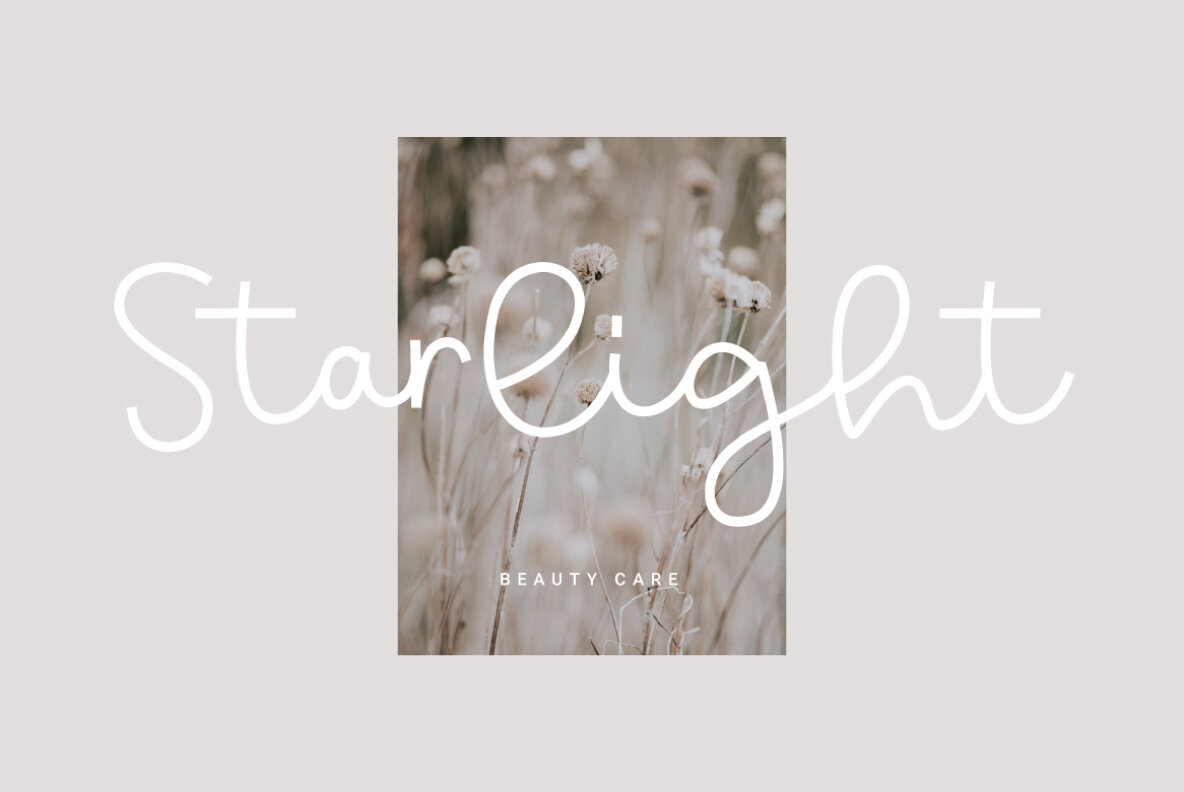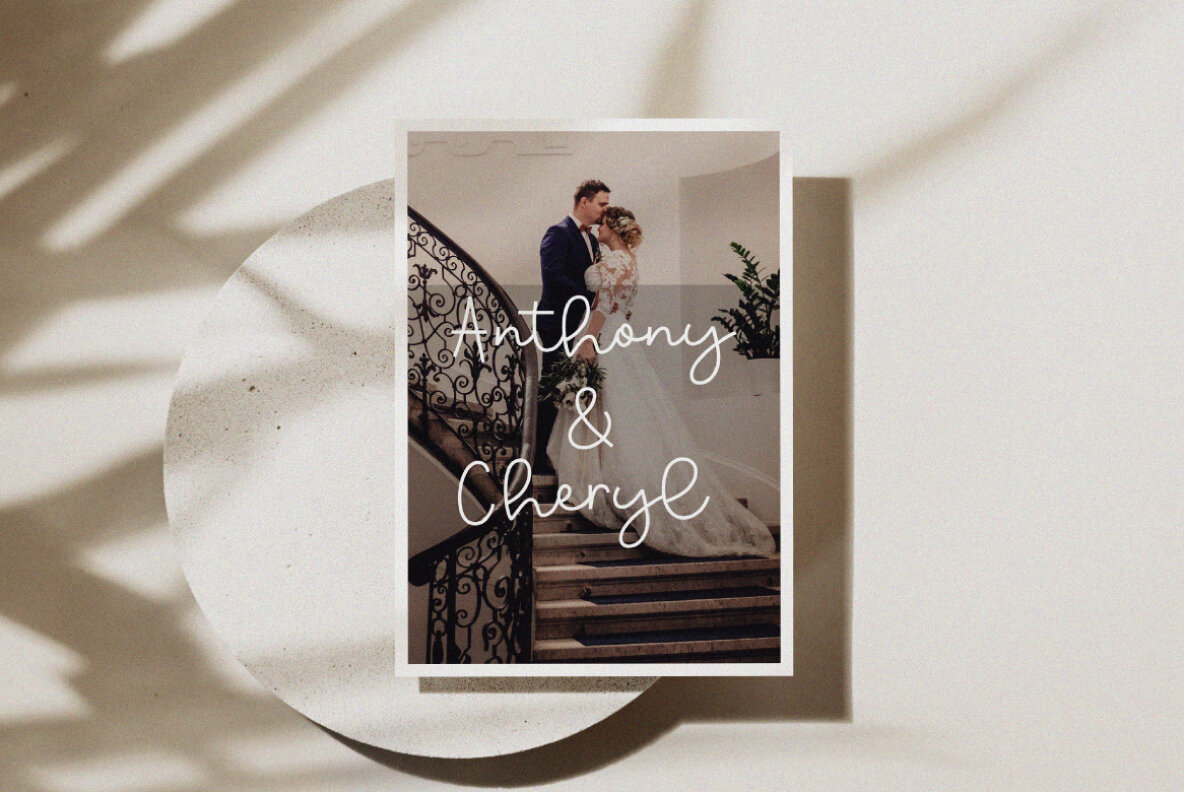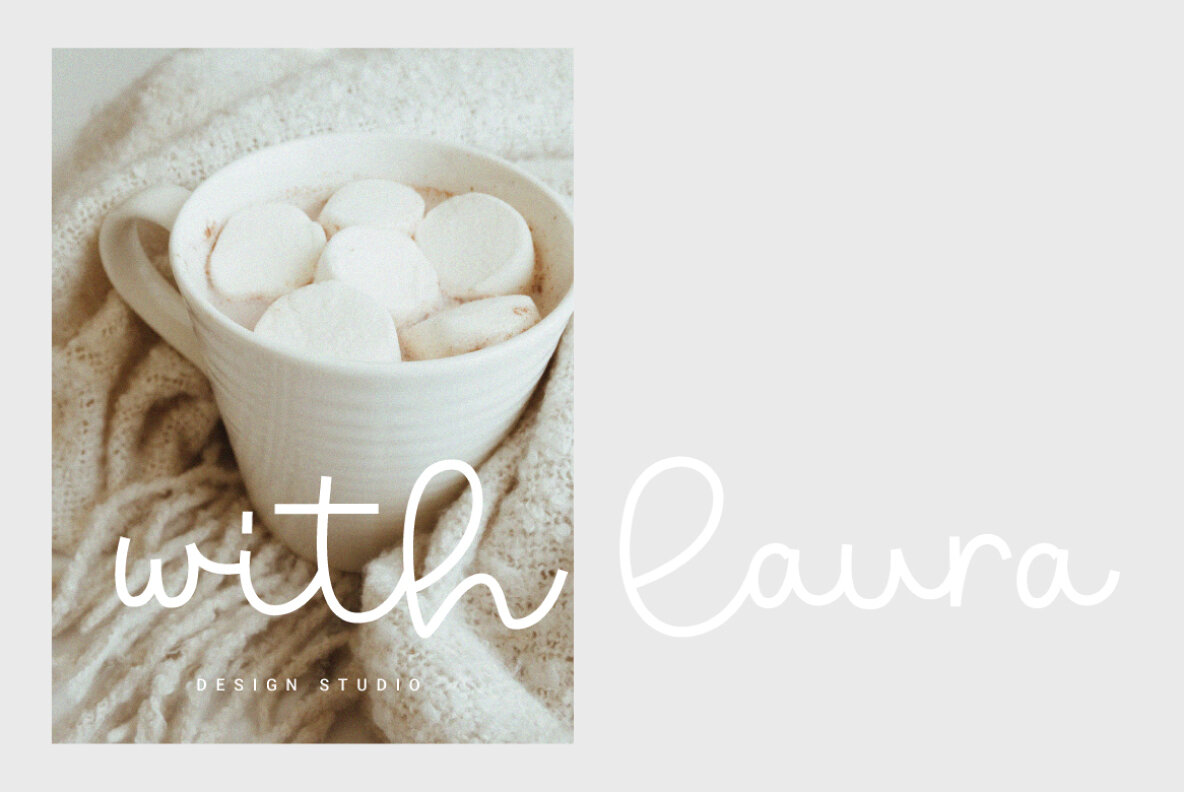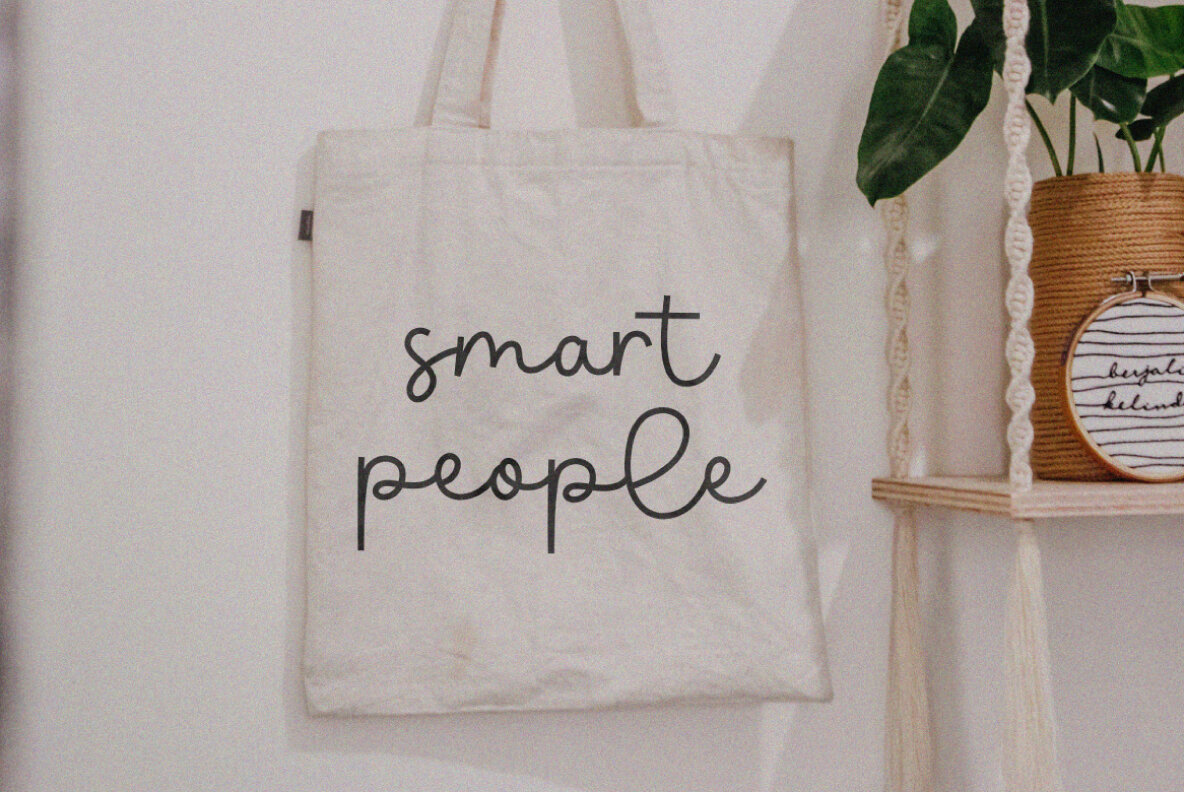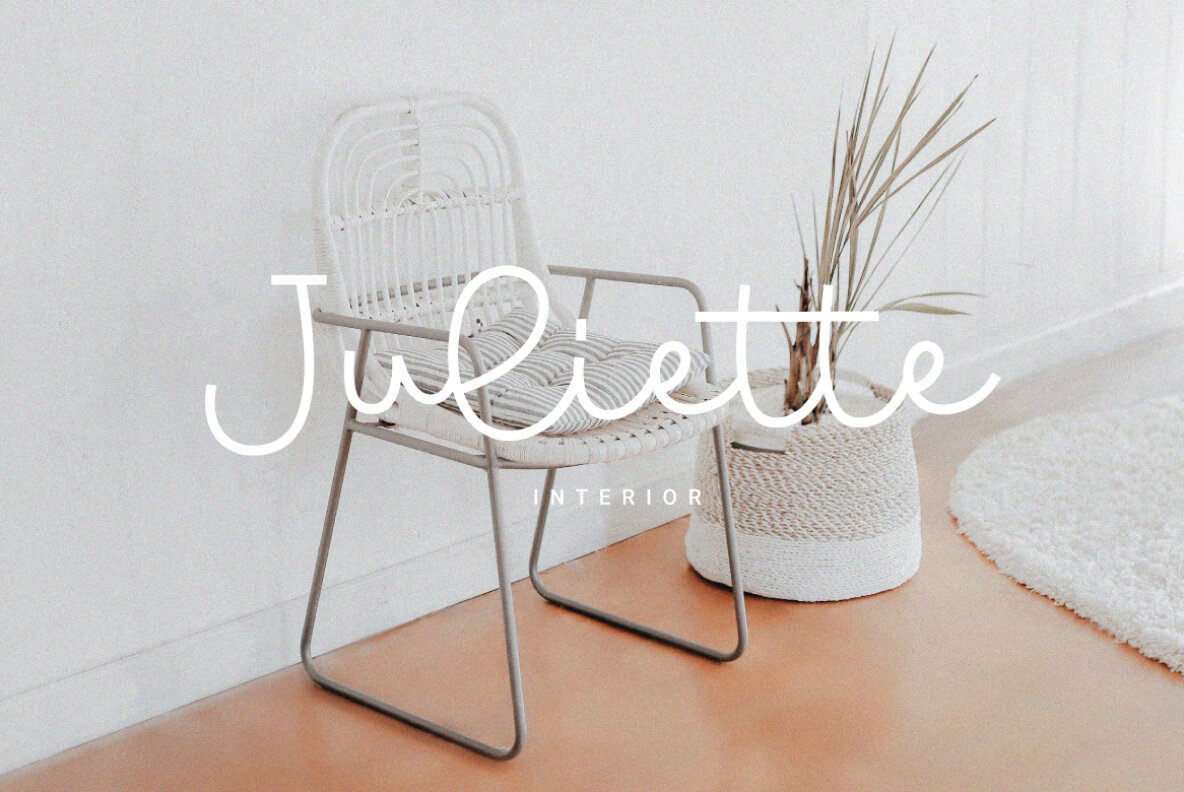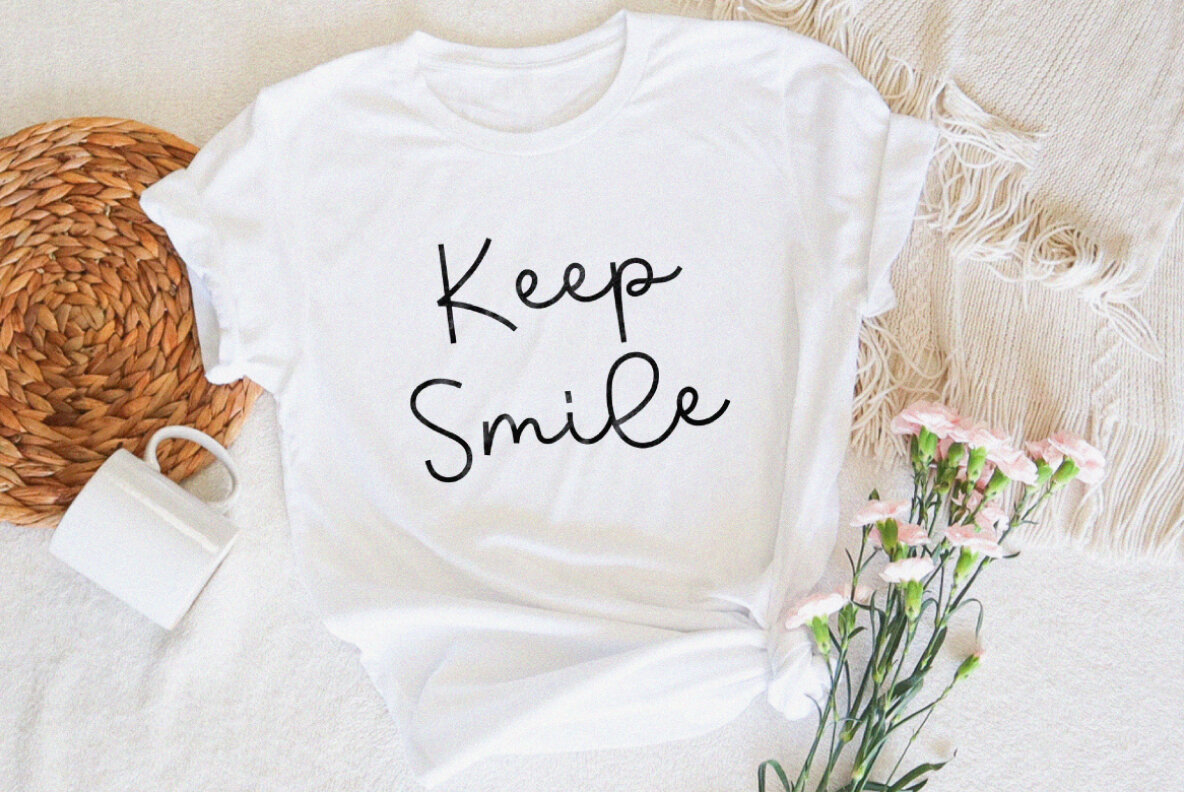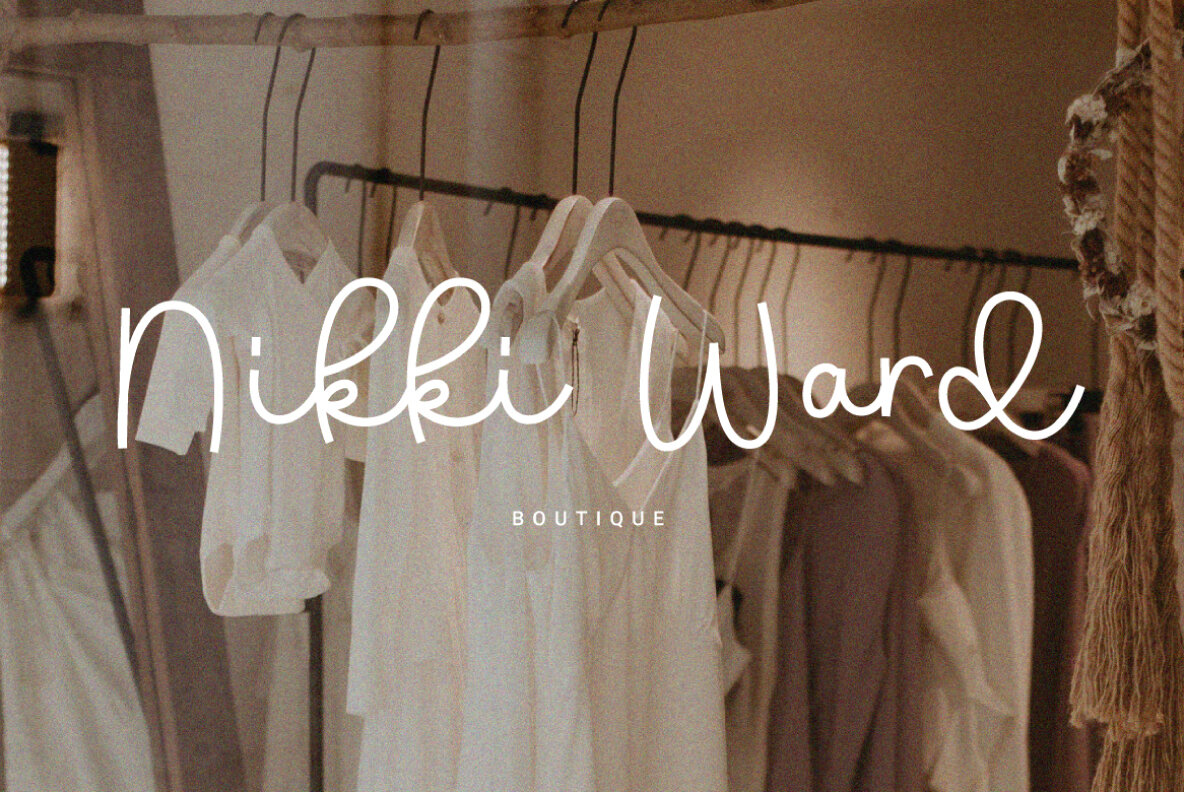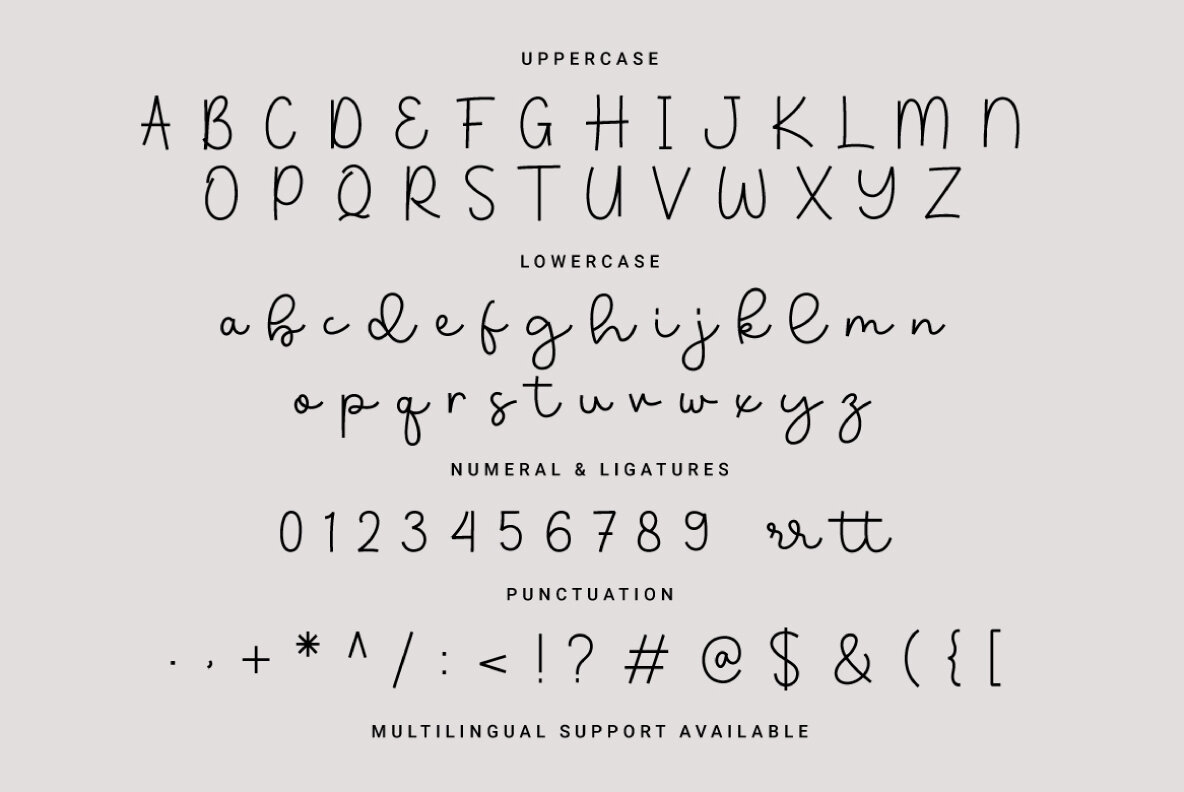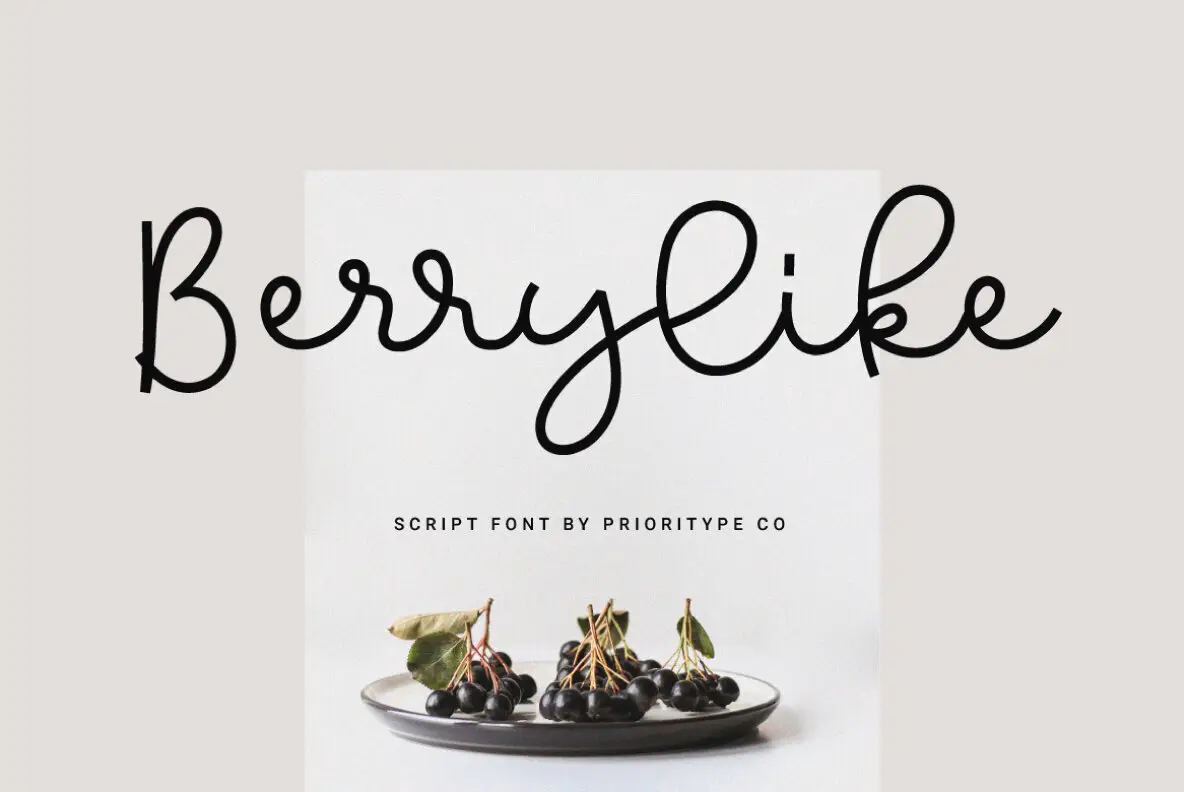
Berrylike Font
Berrylike
Berrylike is a captivating script font designed to bring elegance and authenticity to your creative projects. Its natural, handwriting-like appearance makes it ideal for a wide range of applications, including branding, merchandise, logos, wedding invitations, and social media posts. This beautifully crafted font will add a dazzling touch to your designs, setting them apart with its distinct style.
The font includes a complete set of uppercase and lowercase letters, numerals, punctuation, and ligatures to provide versatility in your typographic design. Berrylike supports a diverse range of languages, offering multilingual capabilities for languages such as Afrikaans, Danish, Dutch, English, Filipino, French, German, Italian, Portuguese, Spanish, Swedish, and many others. Its inclusive range ensures that your designs resonate across various linguistic regions.
With its sophisticated style and extensive feature set, Berrylike is the perfect choice for designers seeking to enhance their visuals with a font that embodies beauty and authenticity.